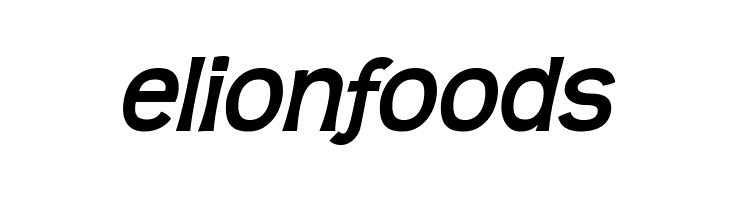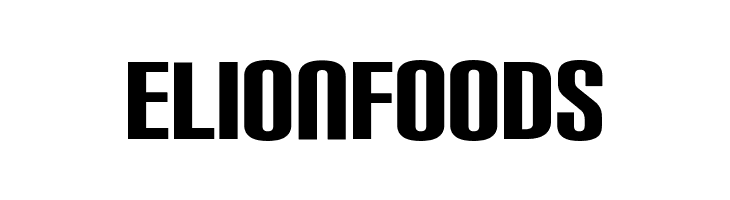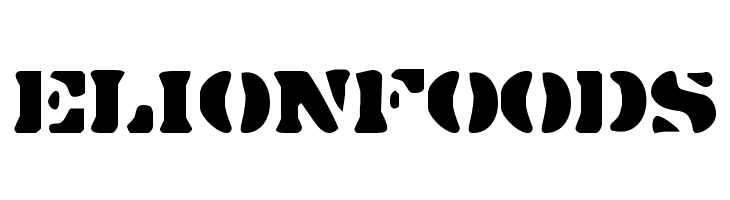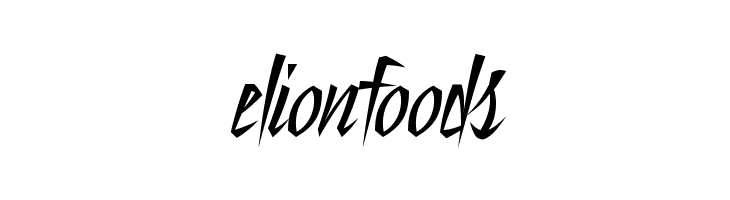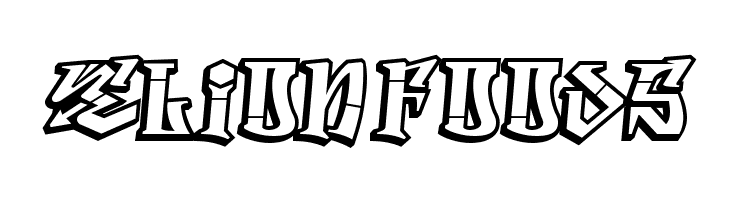
A bold, playful font with a retro-modern style and rounded characters.
A playful, hand-drawn font with a rustic, wood-textured style.
A bold, geometric font with a strong, modern presence.
A bold, dripping font with a horror-themed, melting appearance.
A bold, stencil-style font with geometric cut-out designs.
A bold, jagged font with a horror-inspired, distressed style.
A bold, angular font with a dynamic, hand-drawn style.
A playful and whimsical font with bold, geometric shapes and unique curves.
A bold, graffiti-inspired font with sharp angles and a three-dimensional look.